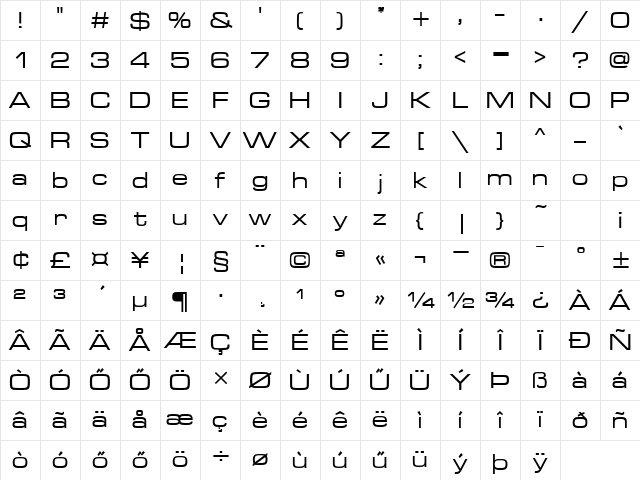
H_MicrogrammaDMedExt Regular
Design Context for H_MicrogrammaDMedExt
H_MicrogrammaDMedExt is a composed and adaptable typeface that performs quietly and consistently across a wide range of design contexts.
Pro Tip: Use H_MicrogrammaDMedExt in both headline and body roles to test its range before committing to a single application.